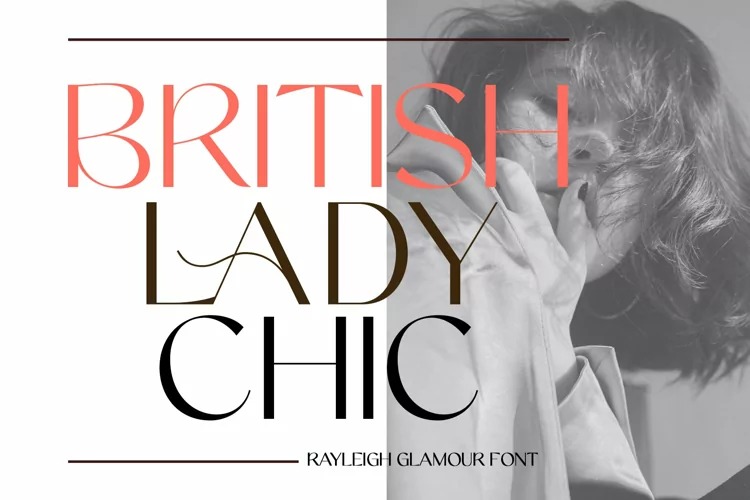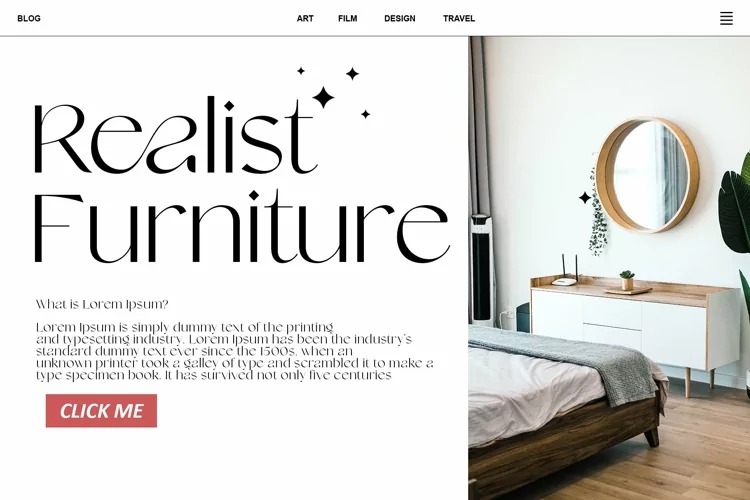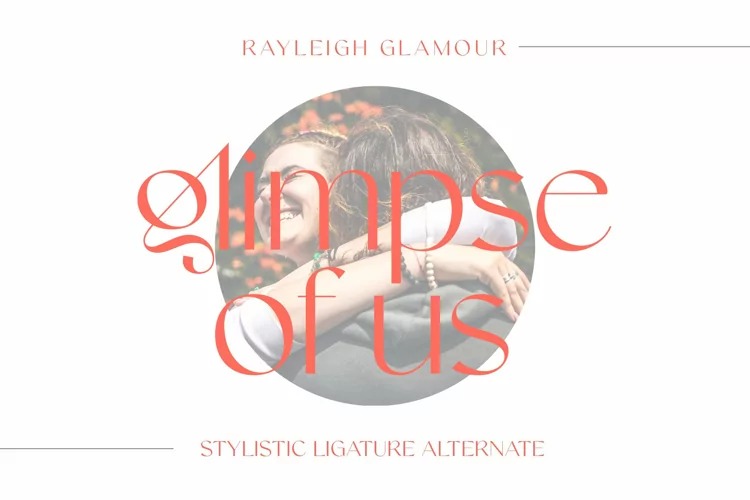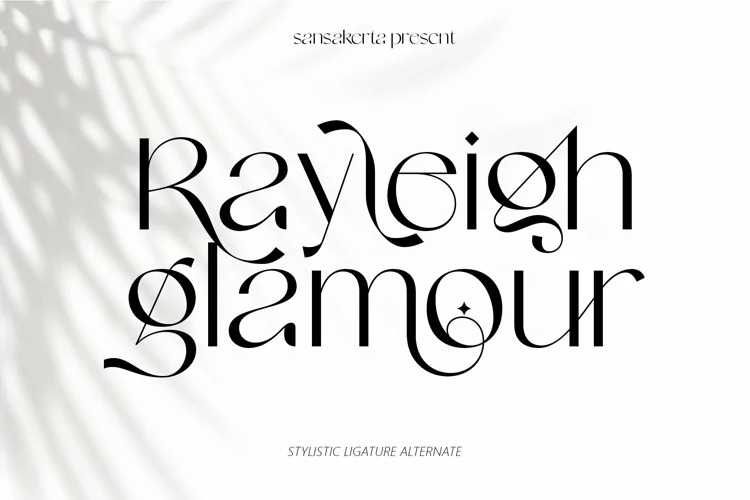
Rayleigh Glamour Sans Serif Font is a modern sans serif typeface created by Sansakerta with a simple and classic theme that is unique and perfect just by looking at it already gives a perfect and beautiful classic impression. This font is perfect for your work to look elegant and luxurious. Perfectly suitable for creating simple, clean, lifestyle design such as logos, title, and magazine and more.